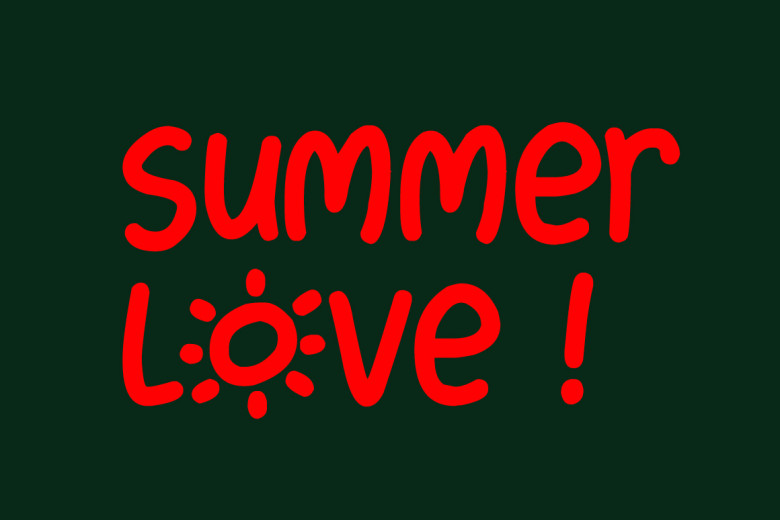
Summer Love Font
Summer Love is a fun, cute font in a loose hand drawn felt tip marker style. This font is perfect for casual, friendly themes! Font created by Darrell Flood.
Summer Love Handwritten Font